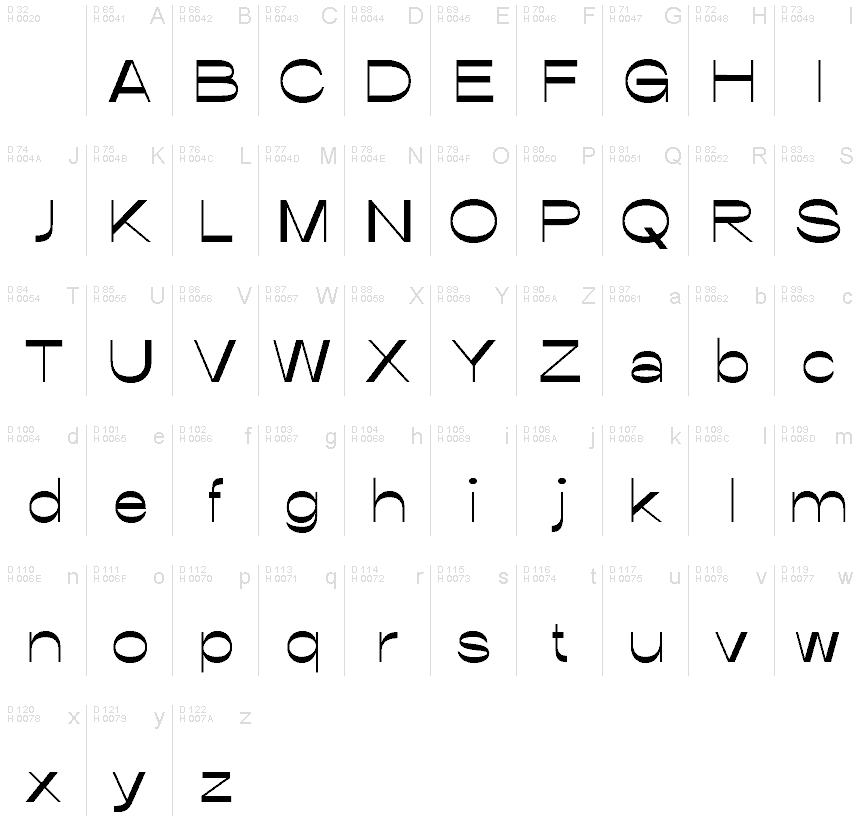
Raely Demo Regular
Raely font designed by Craft Supply Co is a sleek and modern sans serif typeface. Its minimalist design and geometric influences beautifully combines to provide an expanded, contemporary aesthetic. Well-aligned edges give Raely an orderly and clean look that is consistent from one character to another.